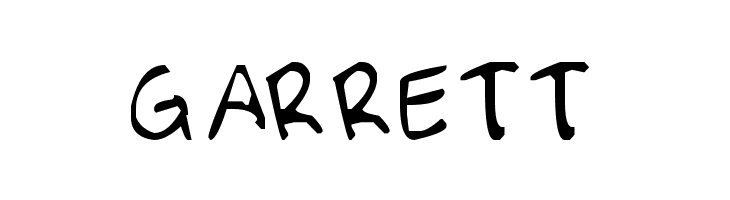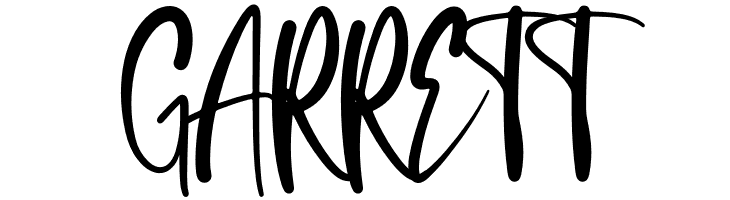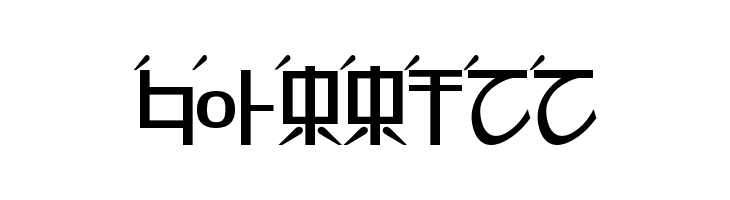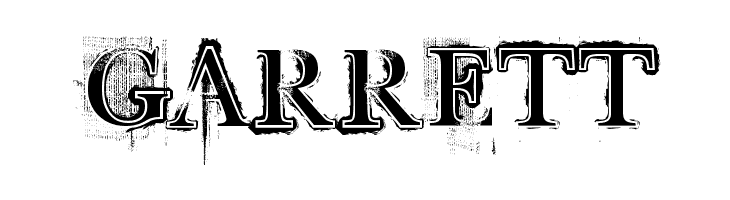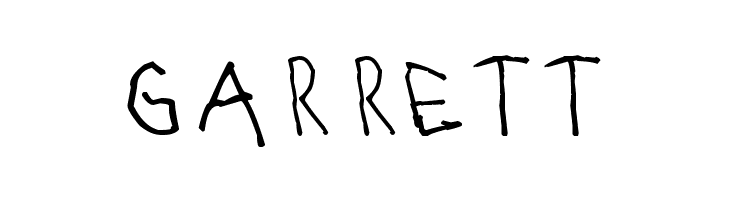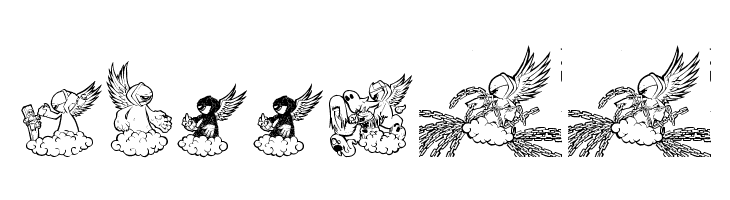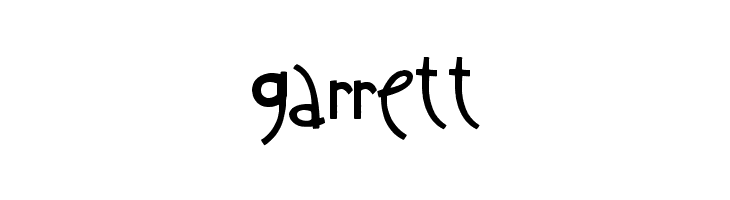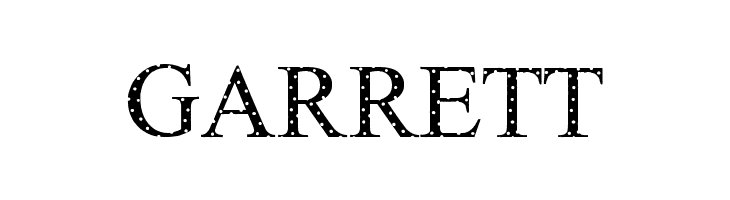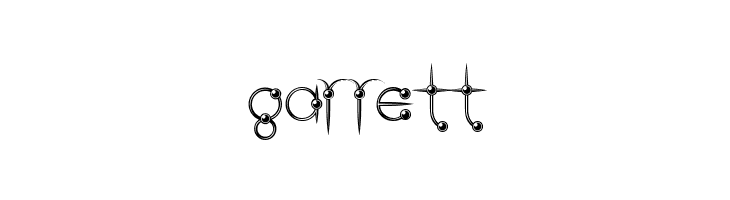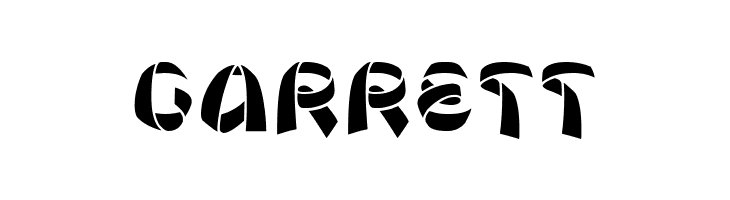
A bold, distressed font with a vintage rock poster vibe.
An intricate Blackletter-style font with bold, angular lines and ornate detailing.
A playful, hand-drawn font with bold, rounded characters and a whimsical style.
A bold, decorative font with ribbon-like strokes and high contrast.
A decorative serif font with ribbon-like embellishments for a playful look.
A futuristic, segmented font with a digital and geometric style.
A bold, expressive handwritten script font with a modern, artistic flair.
An edgy, graffiti-inspired font with sharp, angular lines.
A playful, handwritten font with a dynamic and casual style.
A bold, distressed font with a grunge aesthetic and textured edges.
A bold, textured font with a vintage halftone pattern and 3D shadow effect.
A bold, decorative font with a Western-inspired, slab serif style.
A bold, decorative font with a striped, vintage Western style.
A bold, hand-drawn font with a rough, textured appearance.
A bold, rounded typeface with a modern and impactful design.
A decorative font with a rope-like texture, perfect for creative and playful designs.
A geometric, angular font with a modern and futuristic style.
A playful, hand-drawn font with a lively and informal style.
A bold, textured font with a distressed, grunge-like appearance.
A playful, handwritten font with rounded edges and a friendly vibe.
A bold, vintage serif font with a playful yet elegant style.